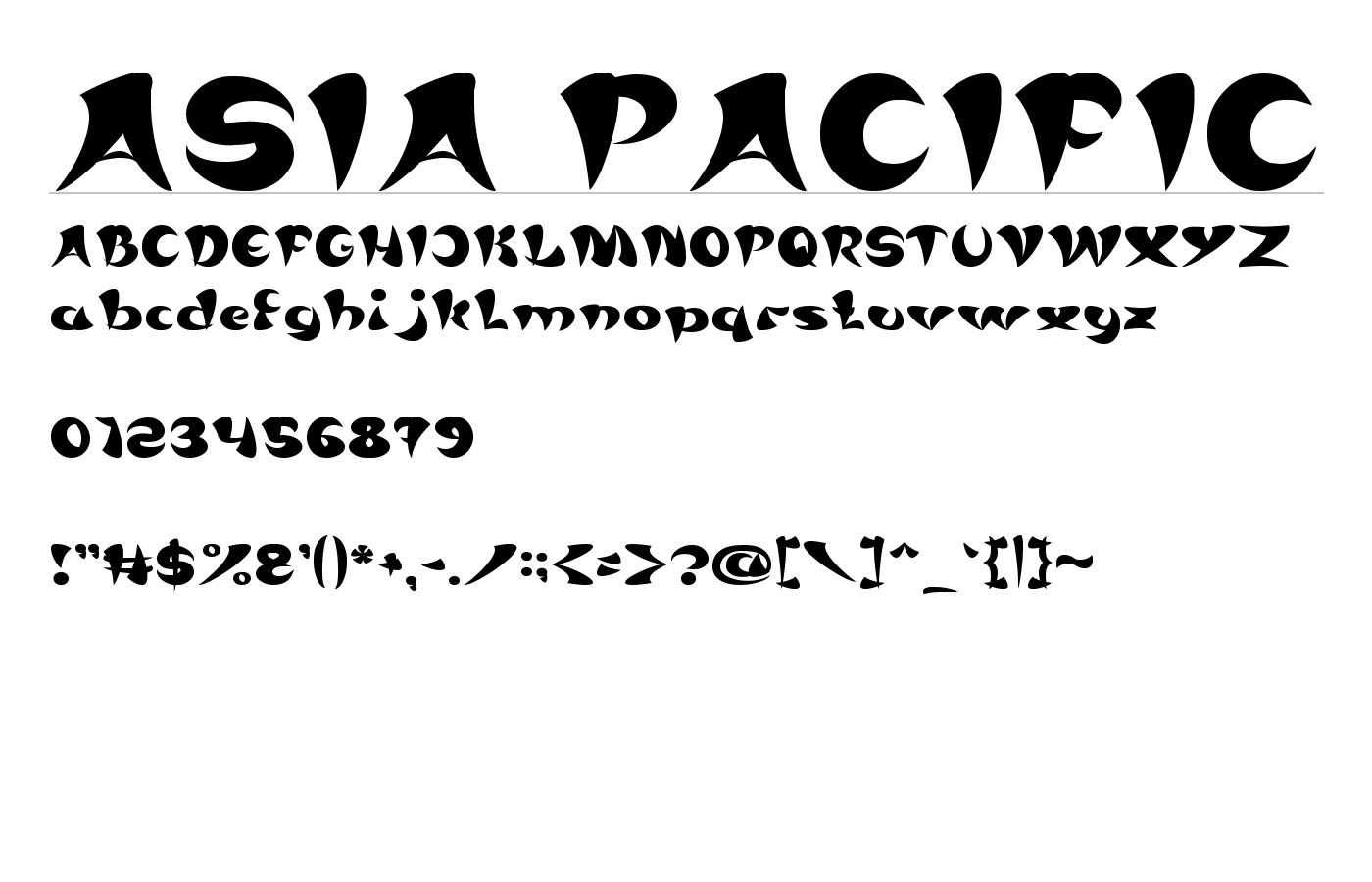
ASIA PACIFIC is a bold, decorative serif font with a unique, artistic flair that blends sharp, pointed strokes with smooth, rounded forms for a dynamic and exotic look. Its high contrast and stylized letter shapes evoke a sense of mystery and cultural richness, making it perfect for eye-catching headlines, logos, and creative branding that require a distinctive, memorable presence. This font works best in display settings where its bold personality can truly shine and captivate an audience.
ASIA PACIFIC Font
About ASIA PACIFIC Font
| Font family | ASIA PACIFIC Font |